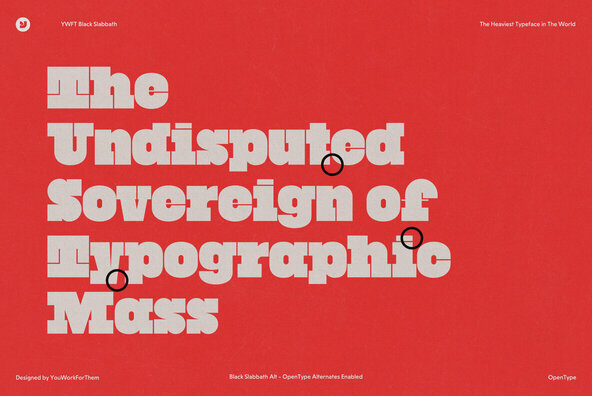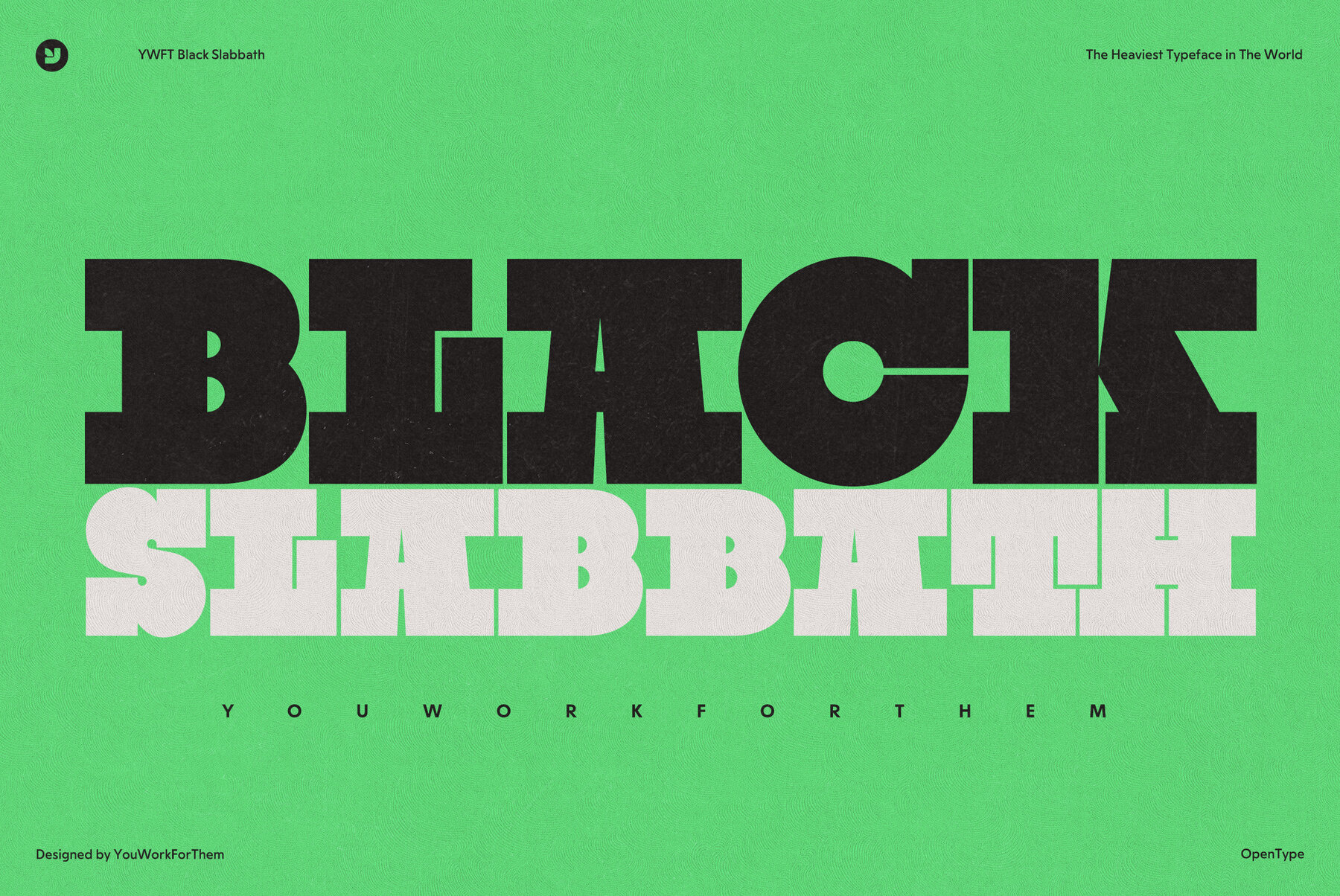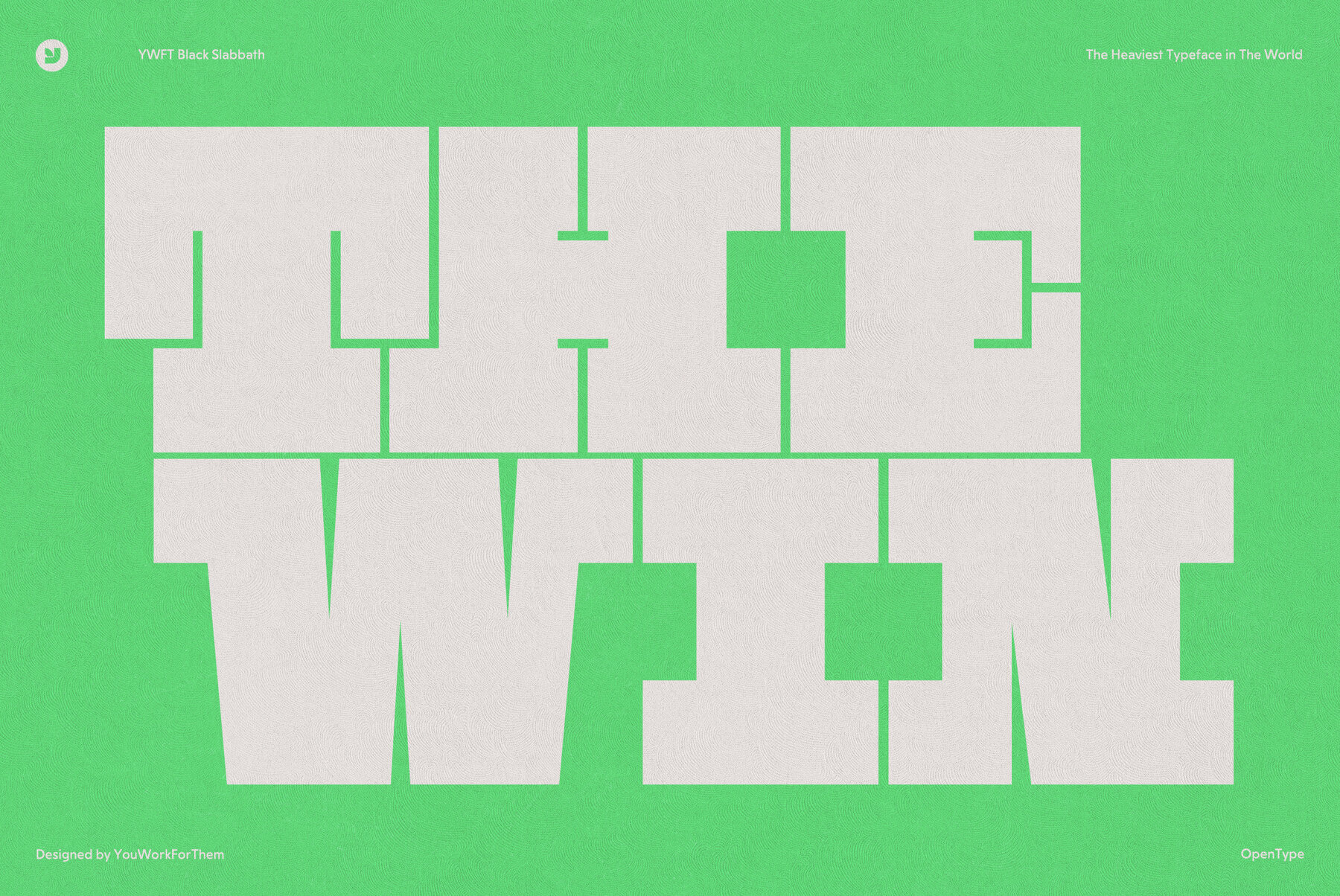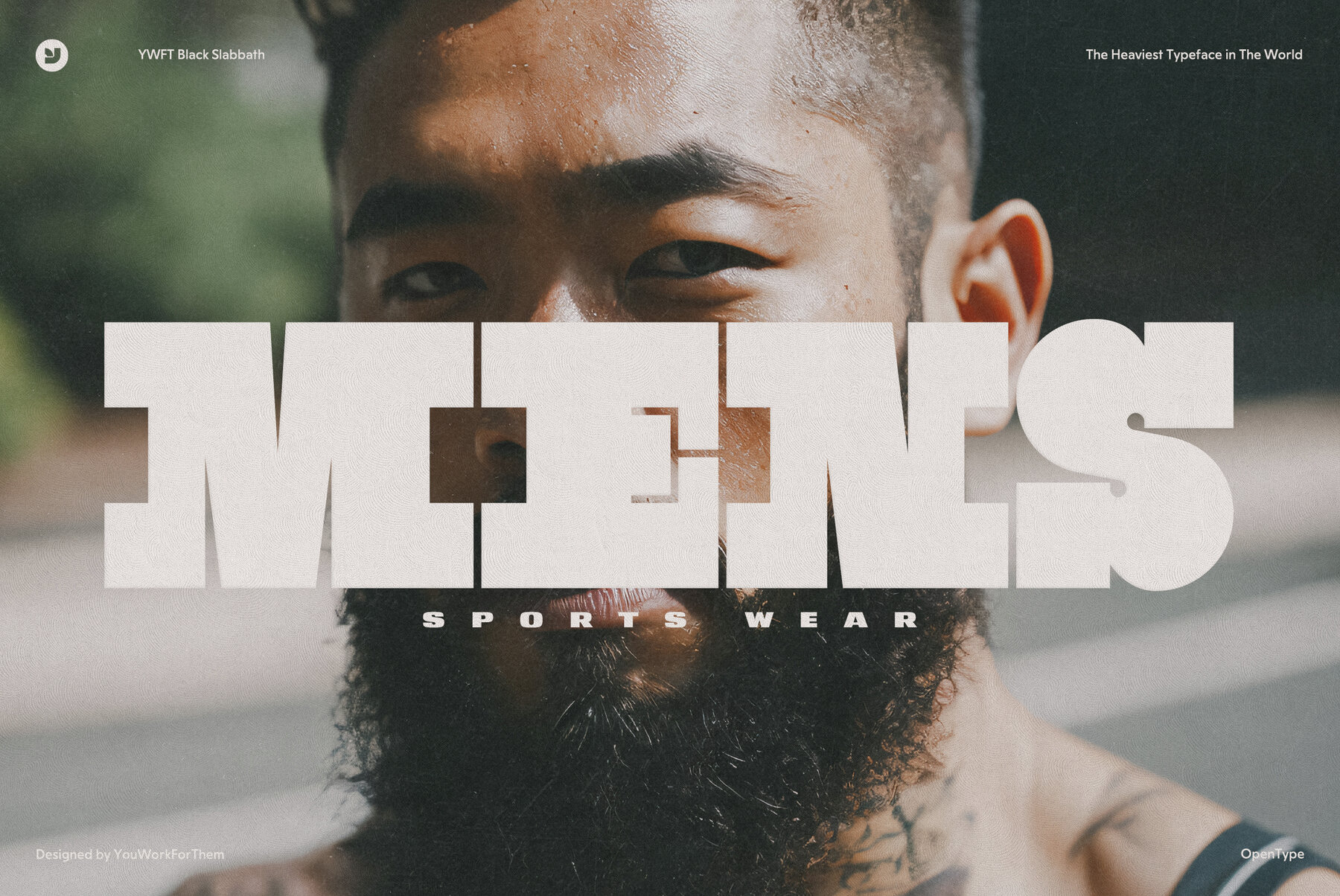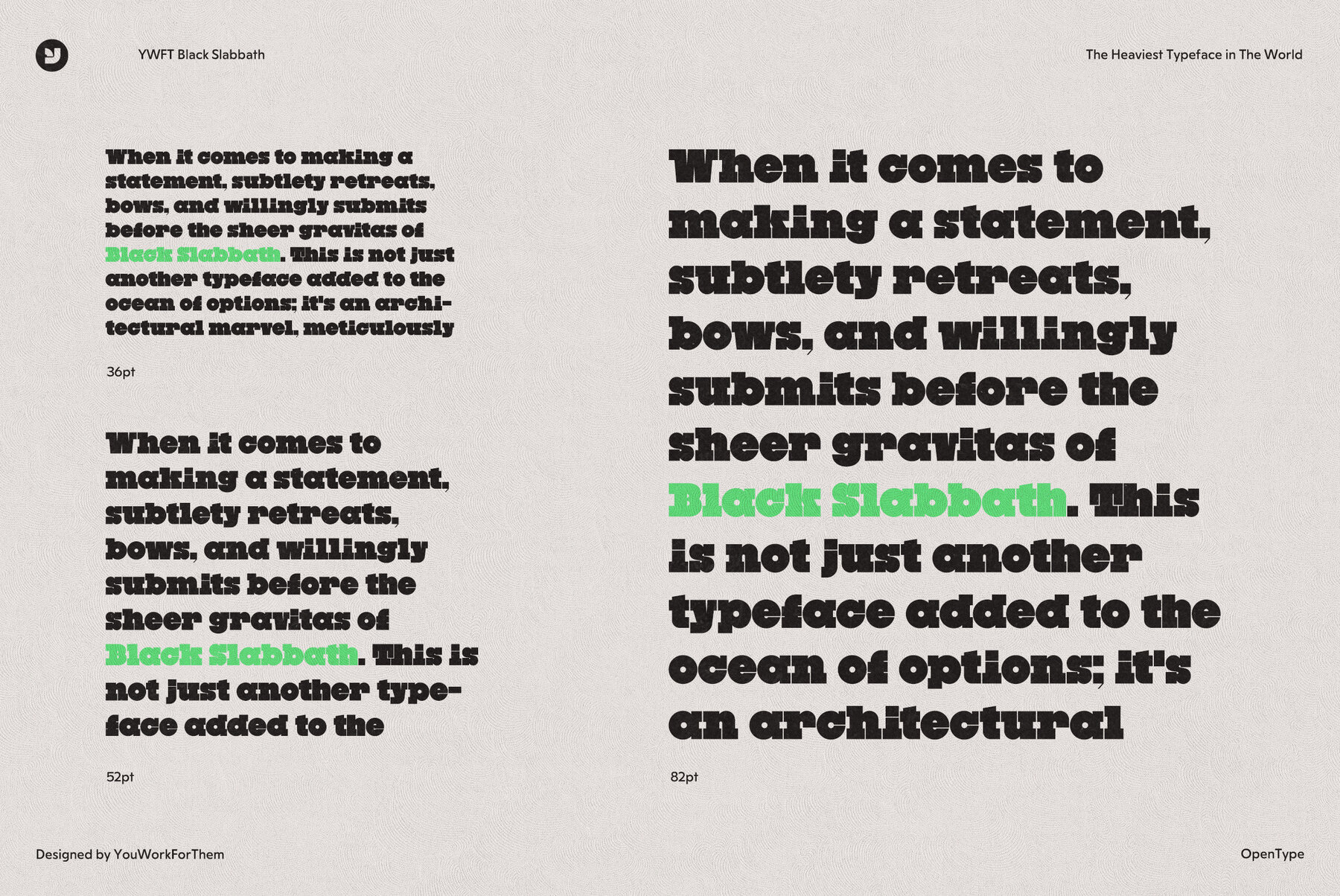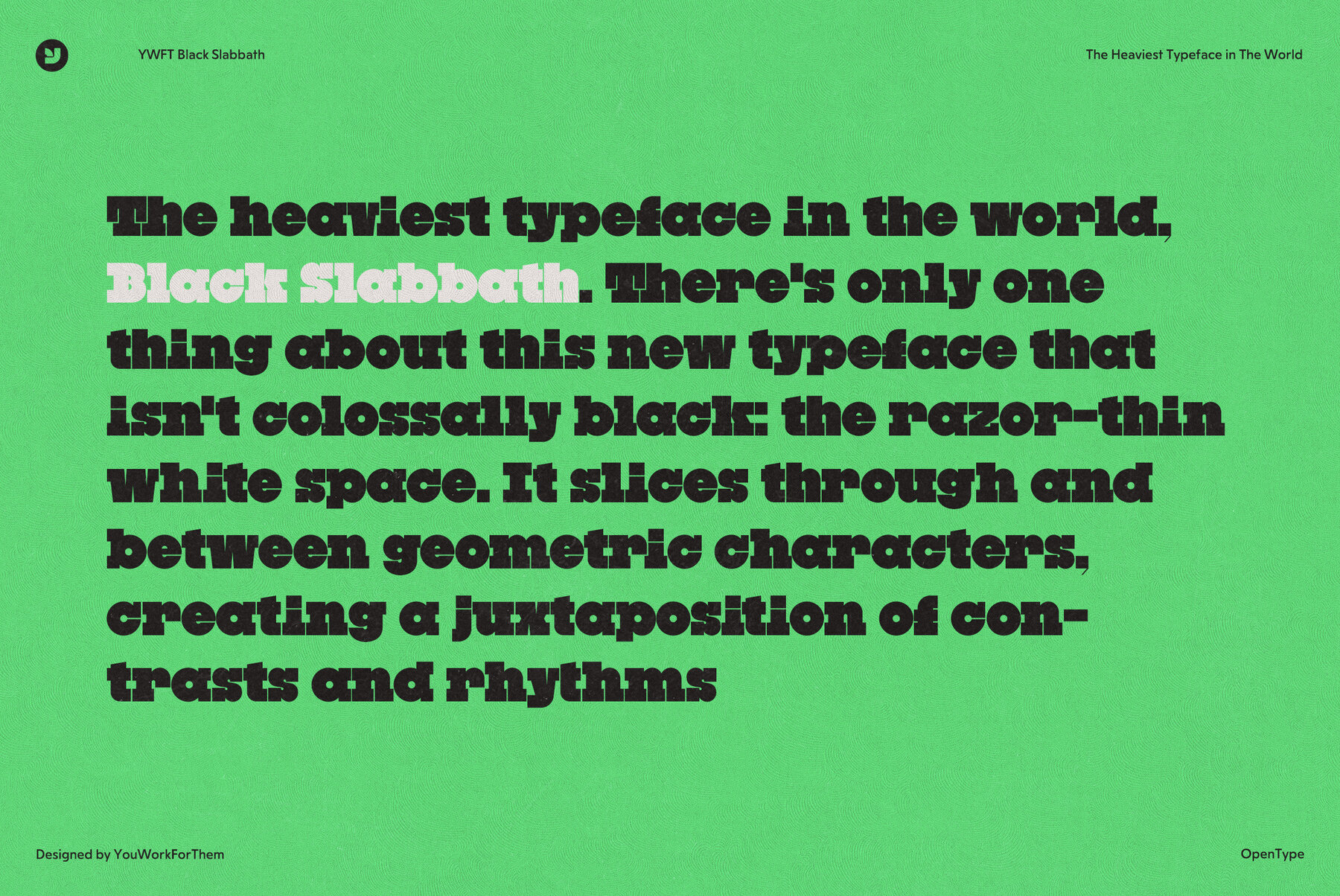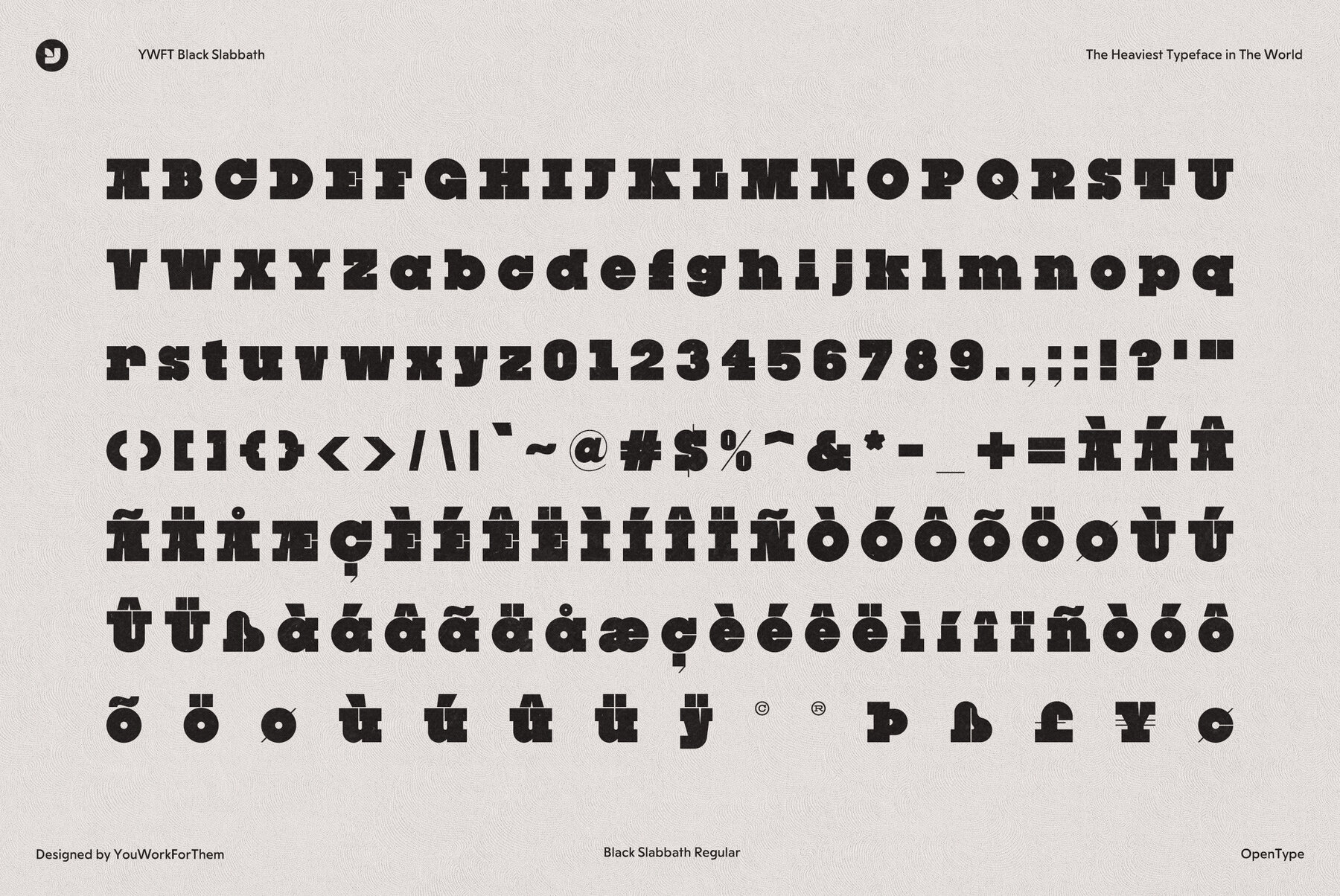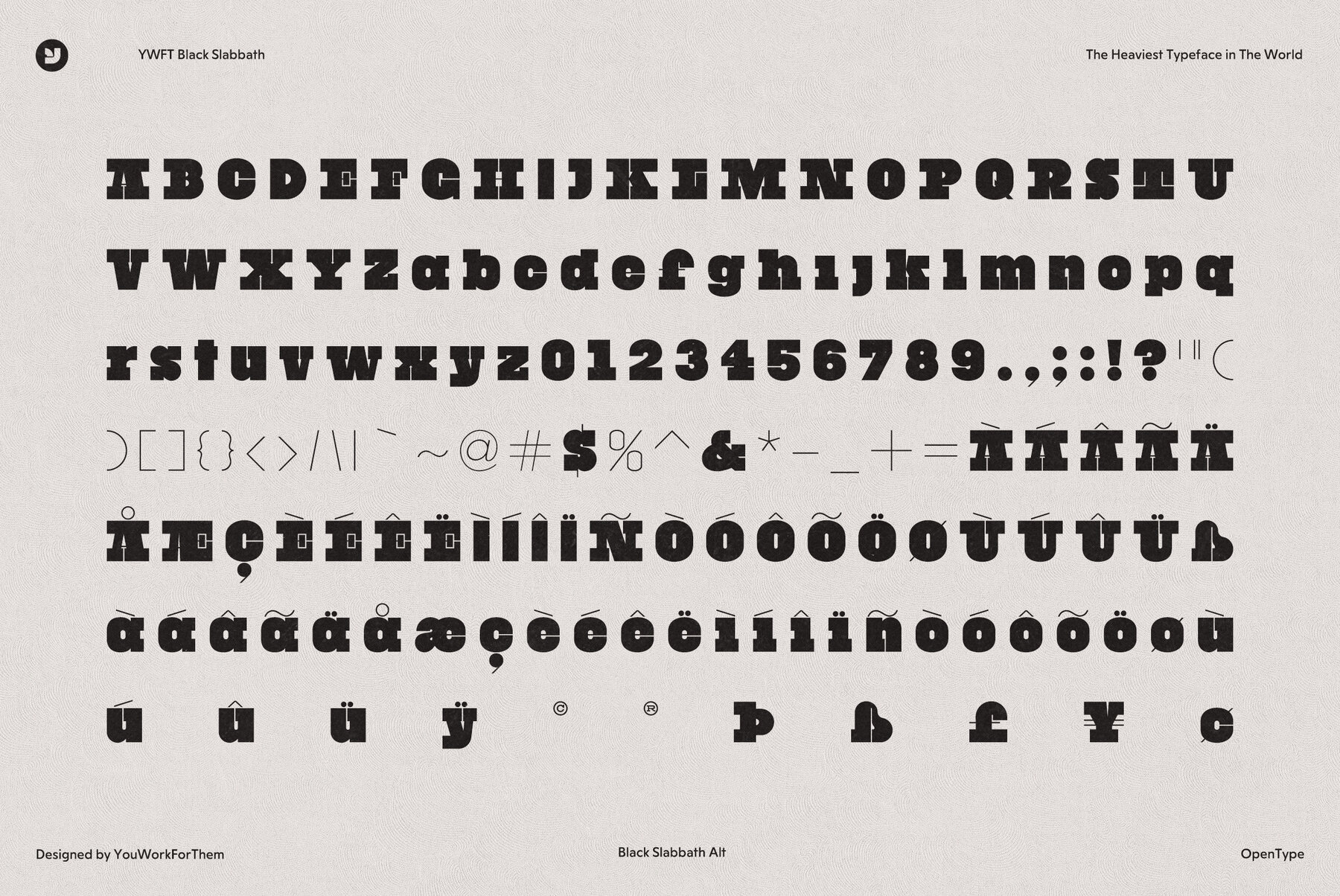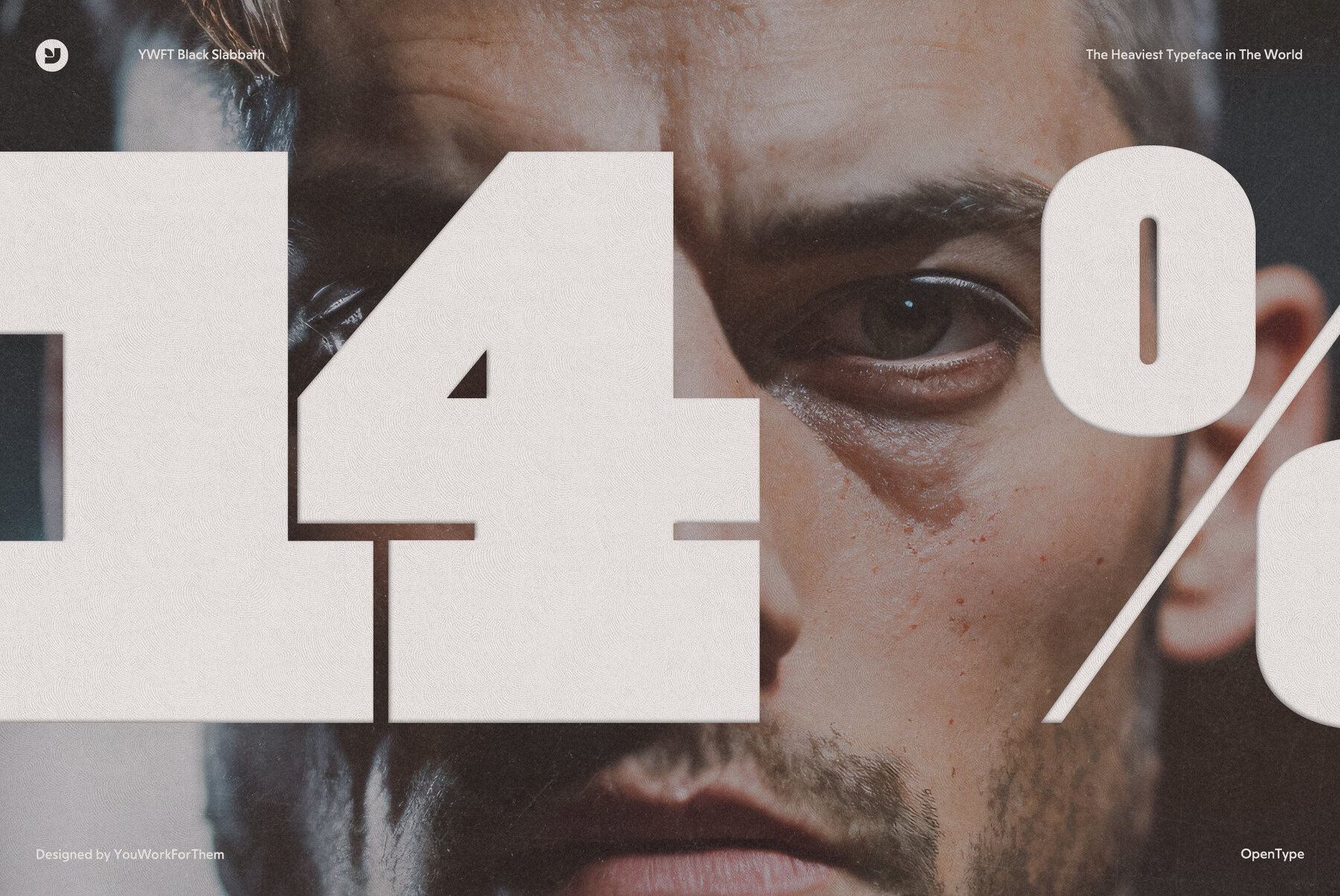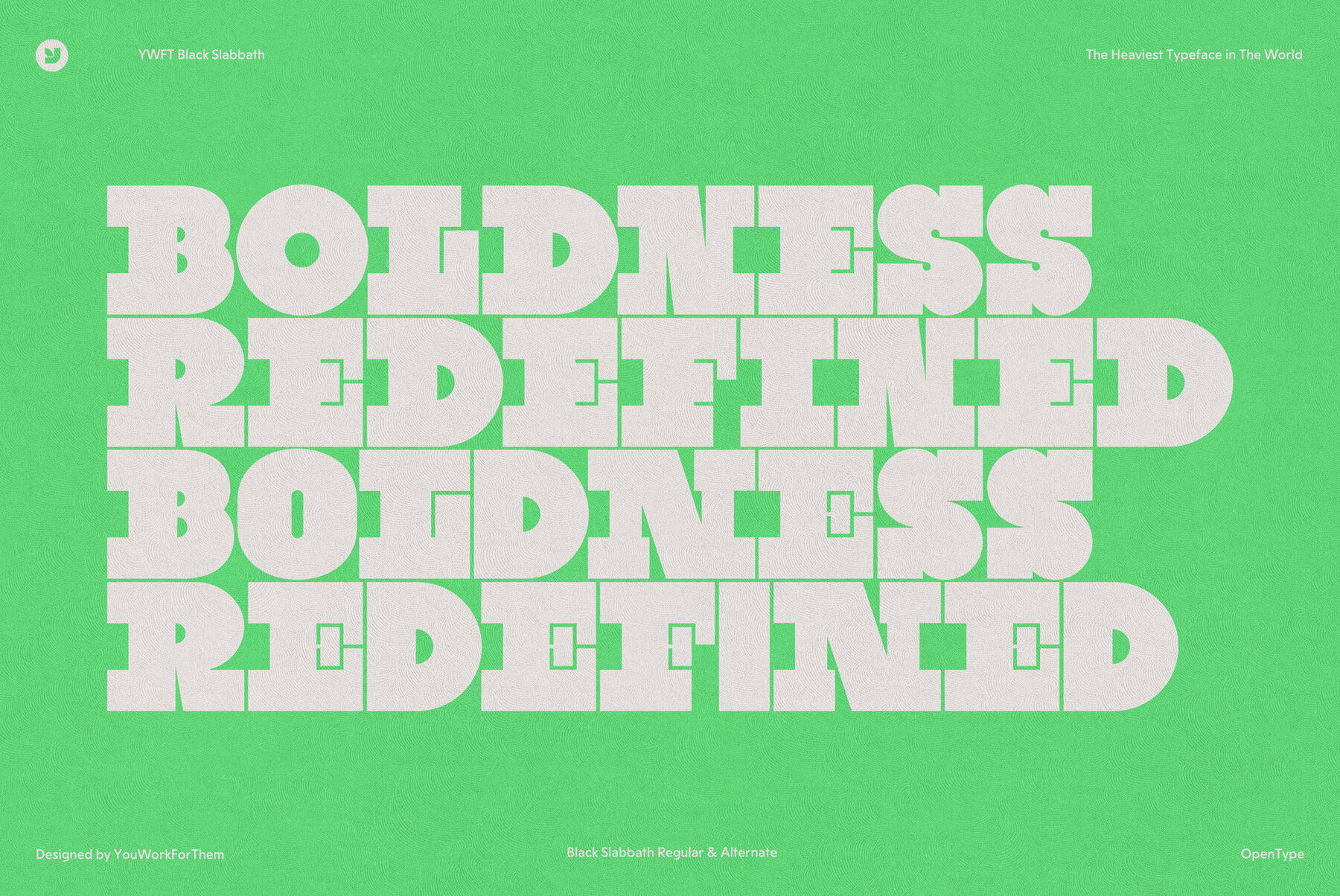
YWFT Black Slabbath Font
by Stefan Kjartansson
Stefan Kjartansson, a visionary in the realm of typography, introduces the intensely bold and masterfully designed YWFT Black Slabbath Typeface. Deceptively simple and yet strikingly impactful, this typeface sets a new standard in graphic design. Named as 'The Heaviest Typeface in The World' when intially launched (2008), Black Slabbath redefines the norms by balancing colossal darkness with glistening razor-thin white space. Each geometric character is intertwined with an innovative approach, where the thin white space slices through the black, forming a breathtaking harmony of contrasts and rhythms. This recasts the typical template of design aesthetics, empowering graphic designers and marketing firms to push boundaries and create compelling, daring narratives. In an arena where distinction is key, the YWFT Black Slabbath Typeface is the high-impact tool you need. Features:Innovative and Bold: The YWFT Black Slabbath Typeface by Stefan Kjartansson